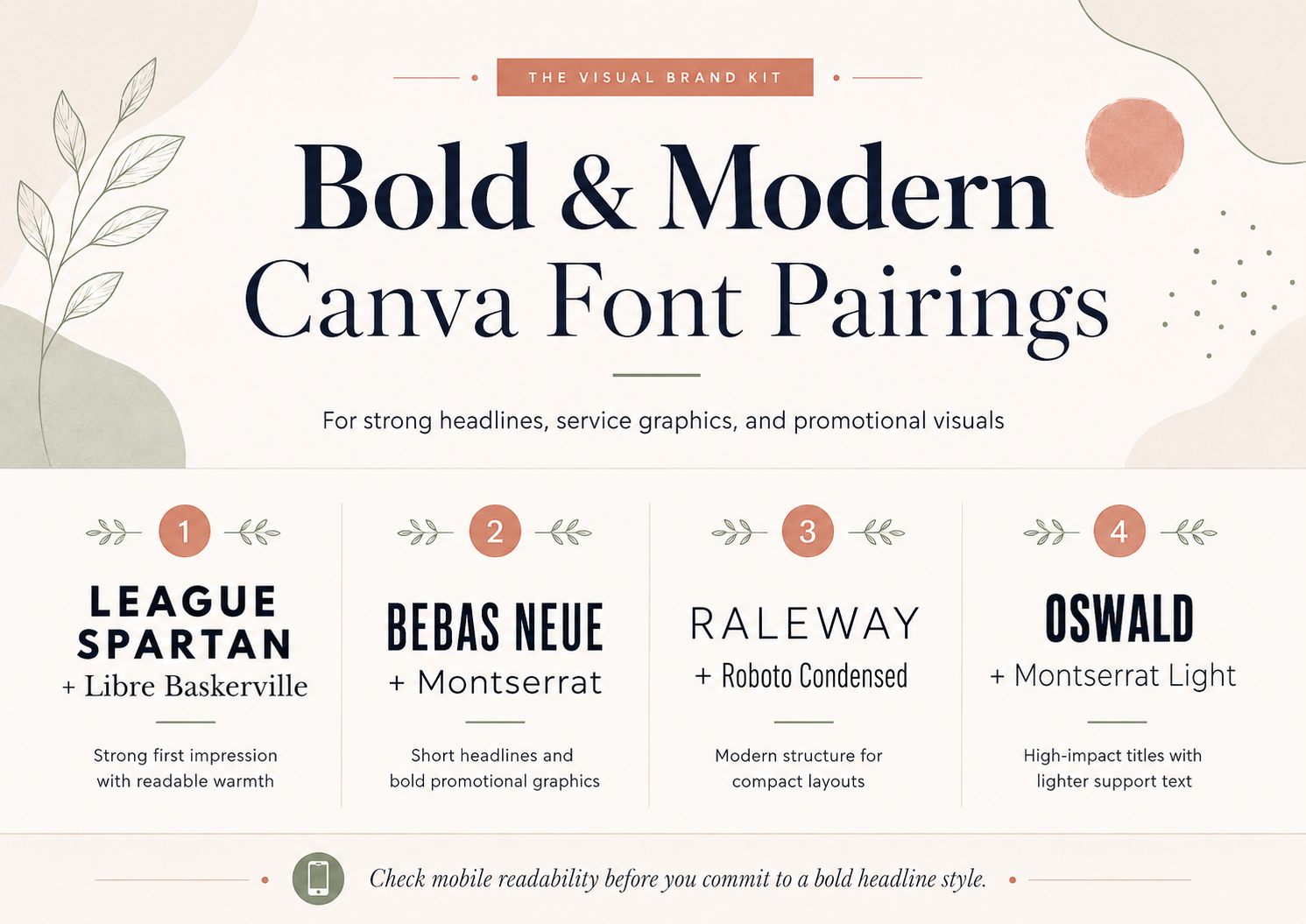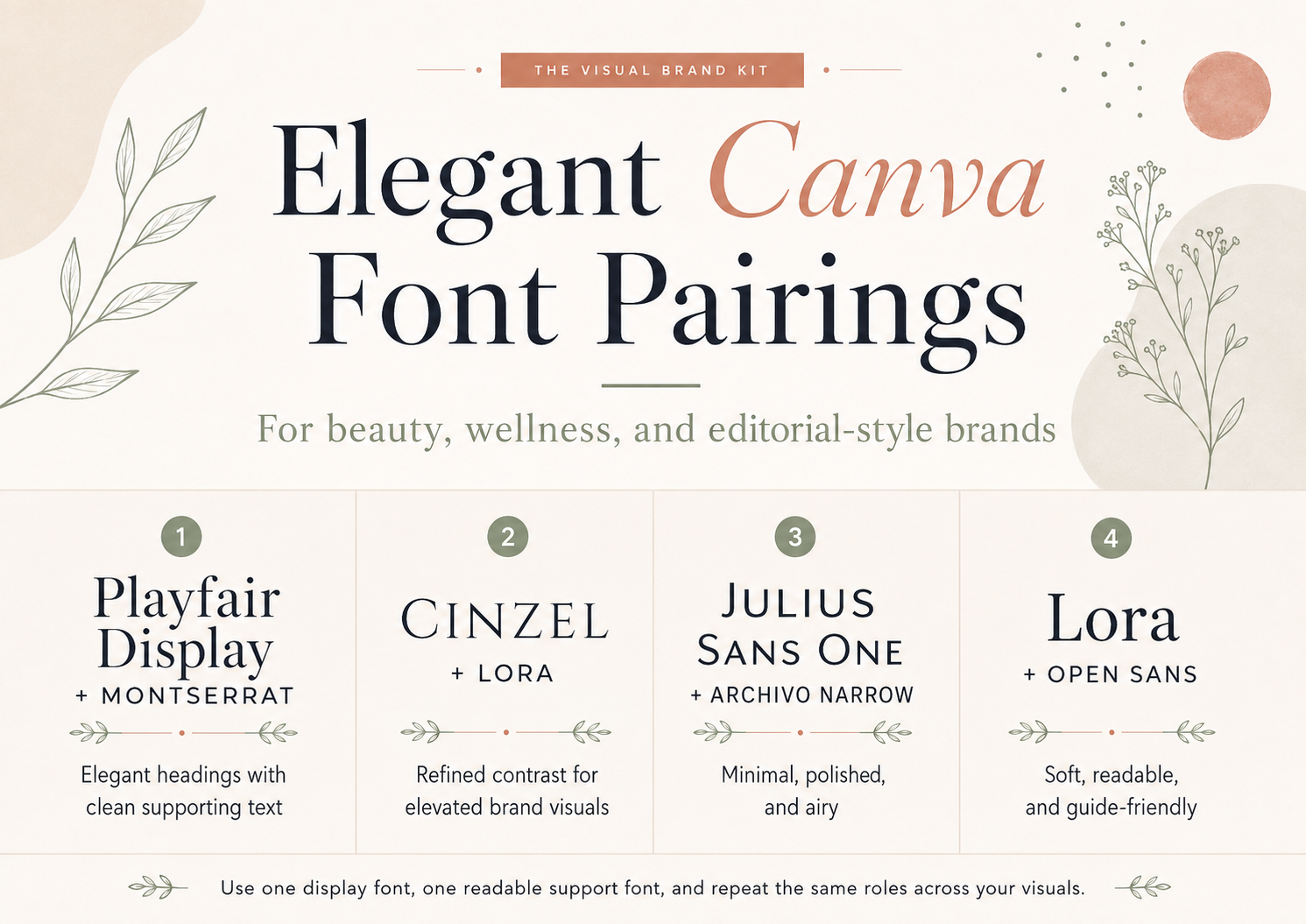
Best Canva Font Pairings for Small Business Branding
Quick answer: useful Canva font pairings to try
If you want a confident service-brand starting point, try League Spartan + Libre Baskerville first. For a more elegant beauty or wellness direction, start with Playfair Display + Montserrat. If readability in guides, PDFs, and client resources matters most, Lora + Open Sans is the safest first test. Use Yellowtail + Open Sans only when you need a small handmade-style accent, and choose Bebas Neue + Montserrat for short, bold marketing headlines.
The quick answer is to pick one heading font and one supporting font, then test that pairing in the real Canva layouts you use most often. A pairing should work on a small Pinterest pin, a lead magnet cover, and a practical business document before it becomes part of your brand system.
| Pairing | Mood | Try first if… | Heading role | Supporting role |
|---|---|---|---|---|
| League Spartan + Libre Baskerville | Confident | You need authority with readable support. | Strong headlines | Descriptions and PDFs |
| Bebas Neue + Montserrat | Bold | Your graphics use short headlines. | Announcements | Details and labels |
| Playfair Display + Montserrat | Elegant | You want beauty or wellness polish. | Display headings | Clean body copy |
| Lora + Open Sans | Warm | Guides and PDFs matter most. | Guide titles | Longer text |
| Source Serif Pro + Source Sans Pro | Balanced | You need a flexible content system. | Section titles | Dense information |
| Yellowtail + Open Sans | Handmade | You only need a small script accent. | Accent words | Readable details |
| Raleway + Roboto Condensed | Modern | You design compact service layouts. | Service headings | Labels and captions |
| Cinzel + Lora | Heritage | You want a classic boutique tone. | Short formal headings | Warm support text |
| Oswald + Montserrat Light | Condensed | Pinterest readability is a priority. | Pin titles | Short supporting copy |
| Julius Sans One + Archivo Narrow | Minimal | You need refined short headings. | Packaging or banners | Compact labels |
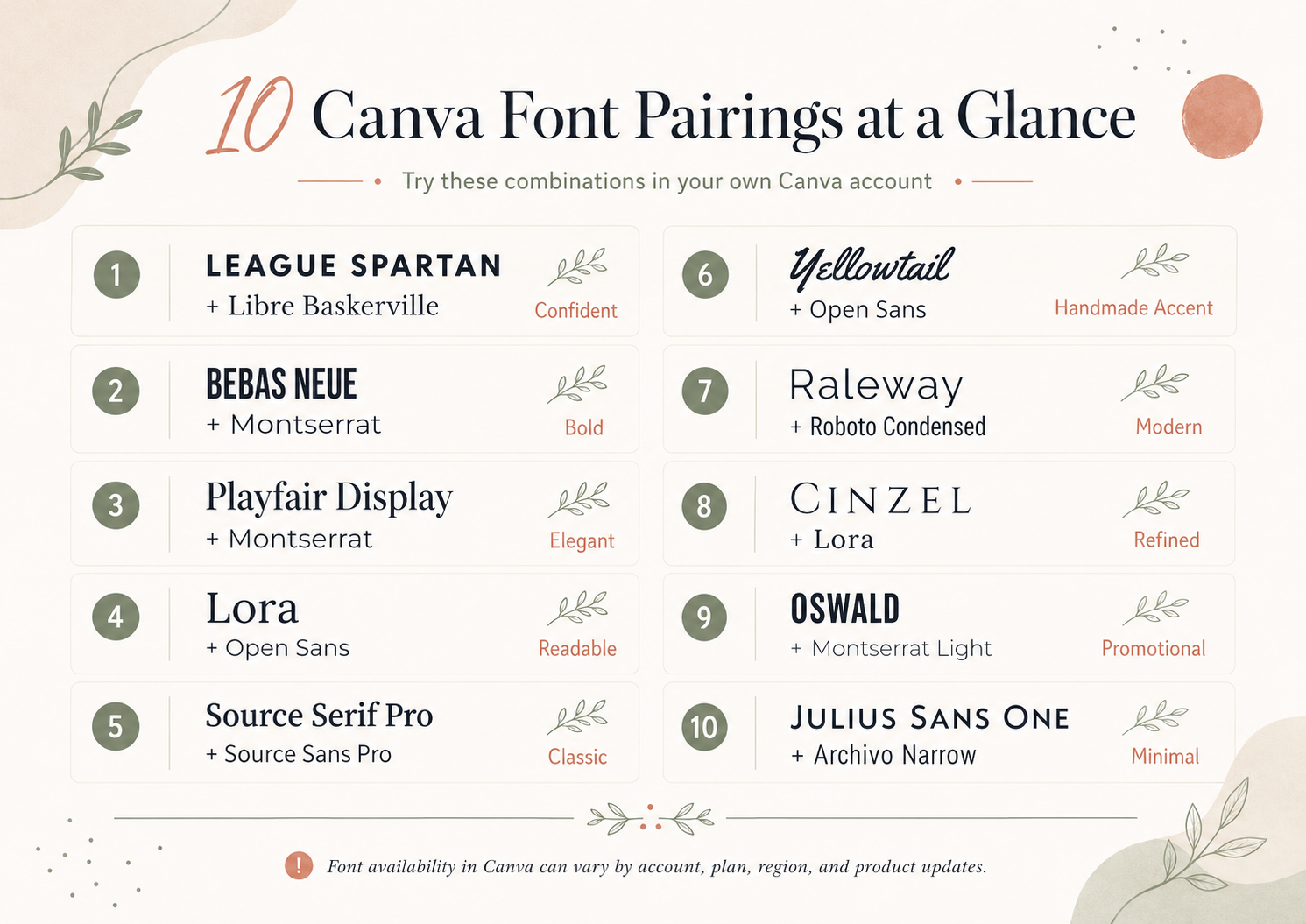
How to choose a Canva font pairing for your brand
A useful font pairing has contrast, hierarchy, readability, mood fit, and consistency. Contrast means the two fonts have different visual jobs. Hierarchy means the reader can tell what to read first. Readability means the supporting font can handle actual information, not just a few pretty words.
Before choosing fonts, define the brand direction. A calm wellness brand, a bold creative studio, and a handmade Etsy shop may all use Canva, but they should not automatically use the same typography. If you have not clarified the visual mood yet, start with a brand board in Canva and collect a few references before choosing type.
- Use contrast: pair a strong display font with a calmer text font.
- Build hierarchy: decide which font handles headings, subheads, labels, and body text.
- Protect readability: test captions, mobile pins, and PDF body copy before committing.
- Match the mood: choose fonts that support the brand feeling you want people to remember.
- Limit the system: one heading font, one supporting font, and one optional accent is usually enough.
Before saving a pairing into your brand board, test it on three real layouts: one small Pinterest pin, one PDF or lead magnet cover, and one information-heavy section such as a pricing guide or service description. This gives you a better read on spacing, mobile clarity, and whether the supporting font can handle practical business copy.
If a heading font only stays readable at large sizes, reserve it for display moments. If the supporting font feels too thin, too narrow, or too decorative in a small preview, choose a calmer option before building the rest of the brand system around it. A pairing should make repeated design decisions easier, not create a new readability problem in every Canva file.
Once a pairing passes those tests, write down the font roles in your brand board: heading, subheading, body text, accent, and any sizing notes you want to repeat. That small note prevents the common pattern of choosing a new font every time you open a template.
10 Canva font pairings for small business branding
Canva font availability note: Font availability in Canva can vary by account, plan, region, and product updates. Check the font names in your current Canva account before building a final brand system around a pairing.
League Spartan + Libre Baskerville
Best decision reason: A confident service brand that needs a strong first impression and readable longer materials.
Typography mood: Confident, structured, and editorial with a warmer reading voice underneath.
- Use the first font for: Large headings, section titles, Pinterest pin headlines, and lead magnet covers.
Start with one pairing from this guide, test it in your Canva account, and build a small type system before adding more fonts. When Canva’s built-in options do not fit the direction you need, use external font resources carefully and review current product details before using them.